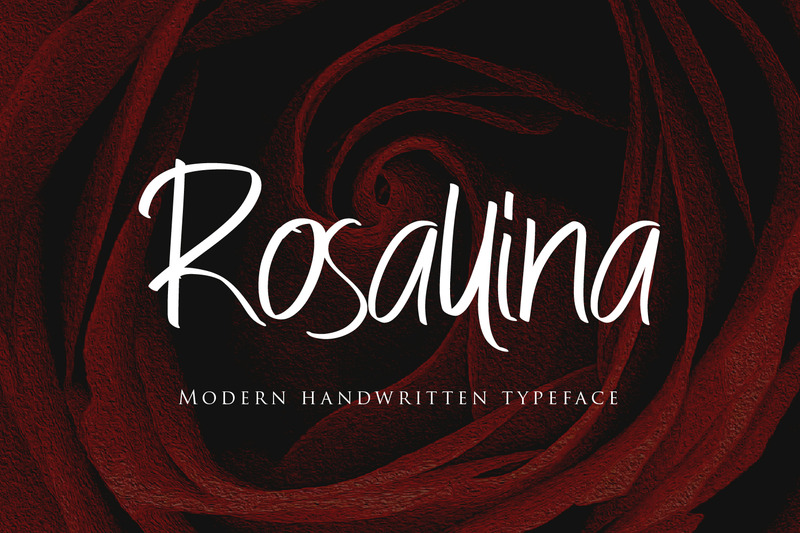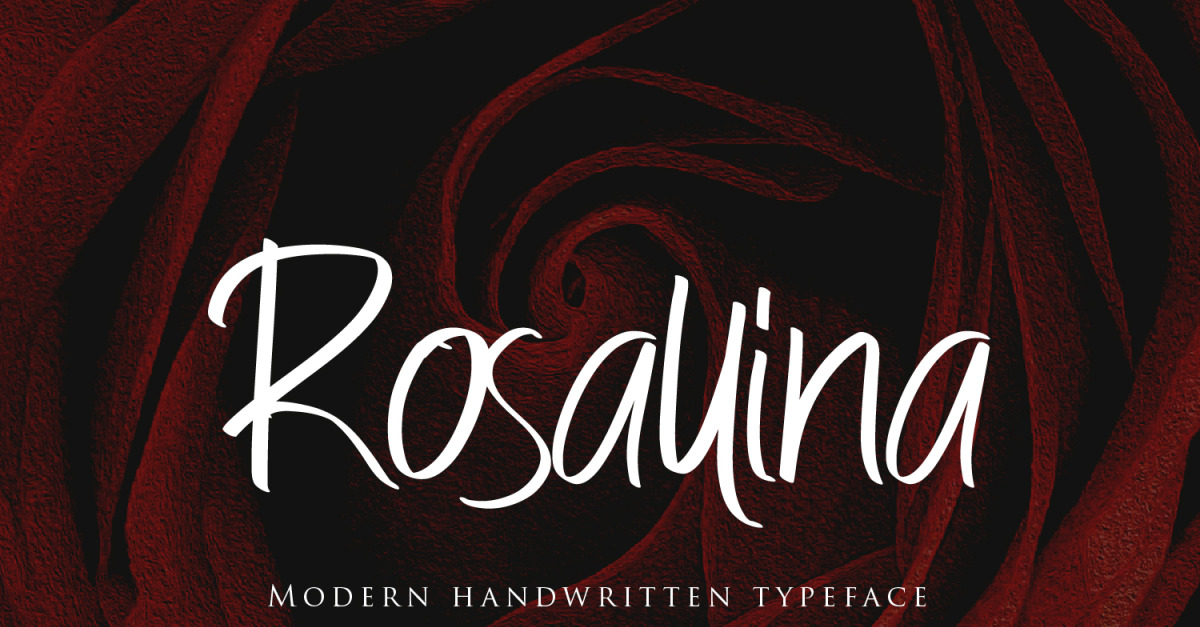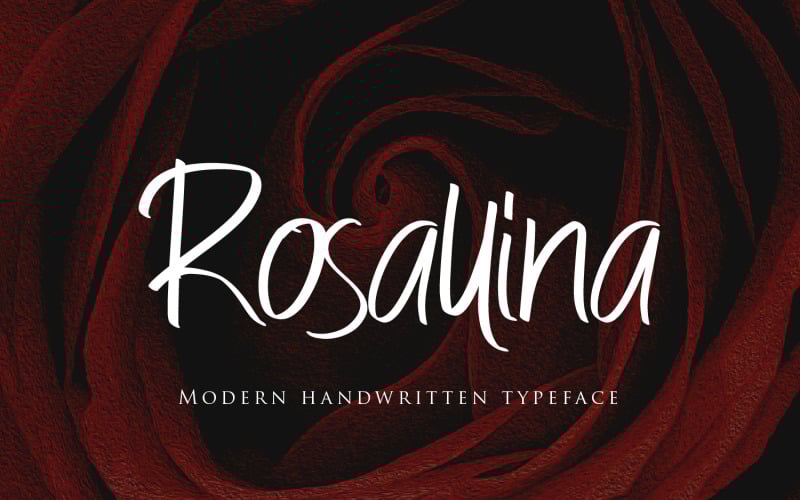
Rosallina - Modern Script fonts
Rosallina is a Modern script font, will be suitable for any projects such as logo’s, branding projects, homeware designs, product packaging, mugs, quotes, posters, shopping bags, t-shirts, book covers, name card, invitation cards, greeting cards, label, photography, watermark, special events, and all your other lovely projects that need beautiful handwriting taste.